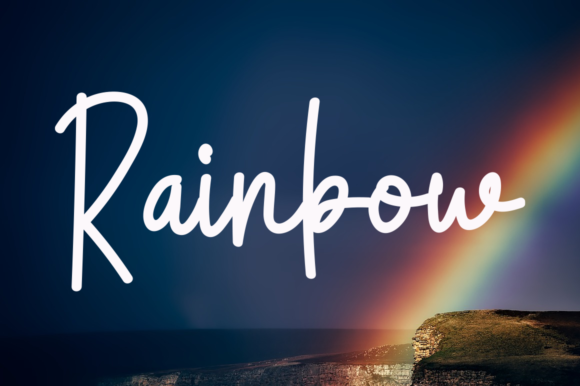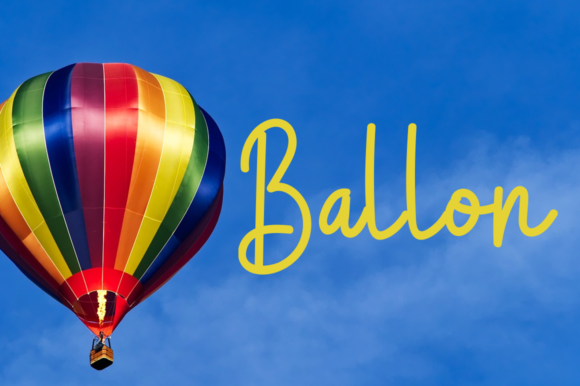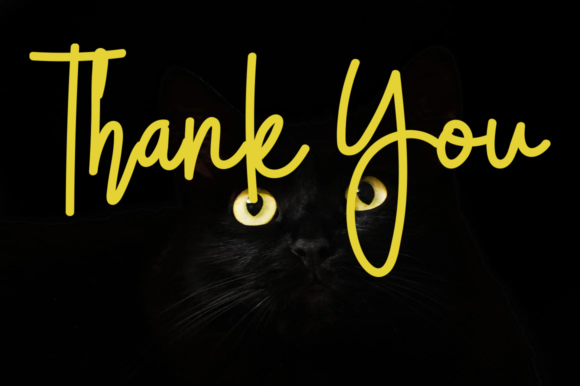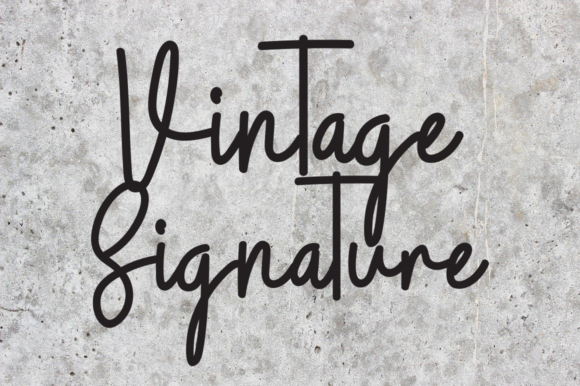
Spring Signature Font
Spring signature is a dainty, genuine and cursive handwritten font. It will add a joyful and romantic touch to each of your projects while making them seem naturally beautiful!